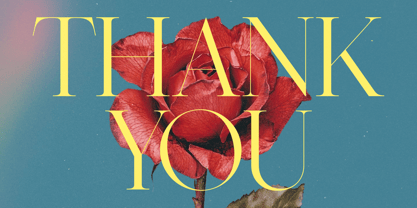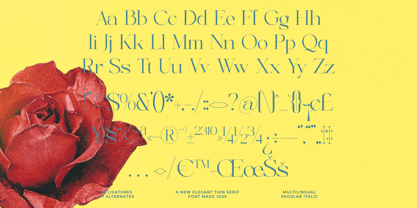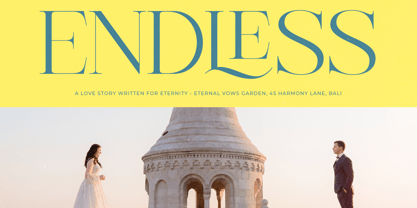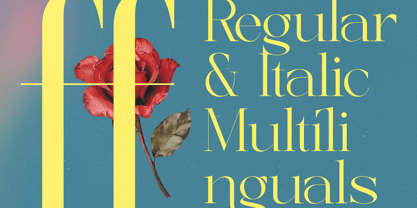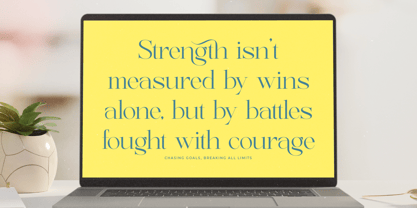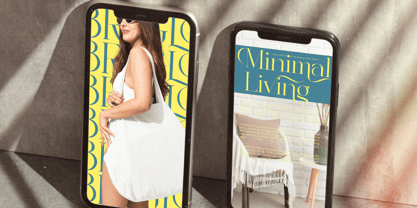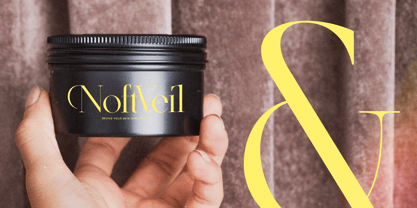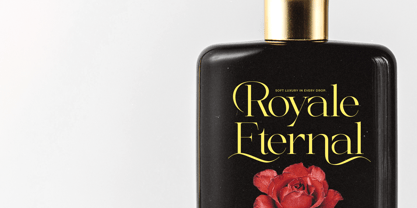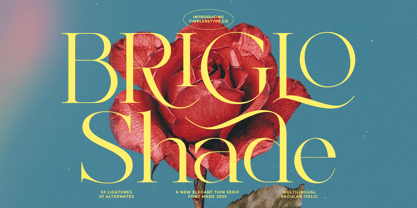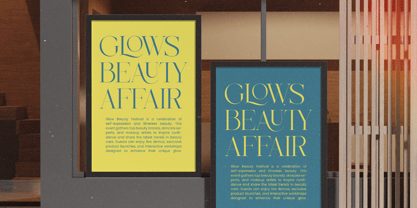
Briglo Shade
by Timelesstype Studio
The Briglo Shade Font Family was designed by Heru Utama Putra and published by Timelesstype Studio. Briglo Shade contains 2 styles and family package options.
Briglo Shade - Elegant Thin Serif Font , from Timelesstype , Suitable for any projects such as: logos, branding projects, homeware designs, product packaging, mugs, quotes, posters, shopping bags, t-shirts, book covers, name card, invitation cards, greeting cards, label, photography, watermark, special events, and all your other luxury and beautiful projects that need a Luxury Serif taste.